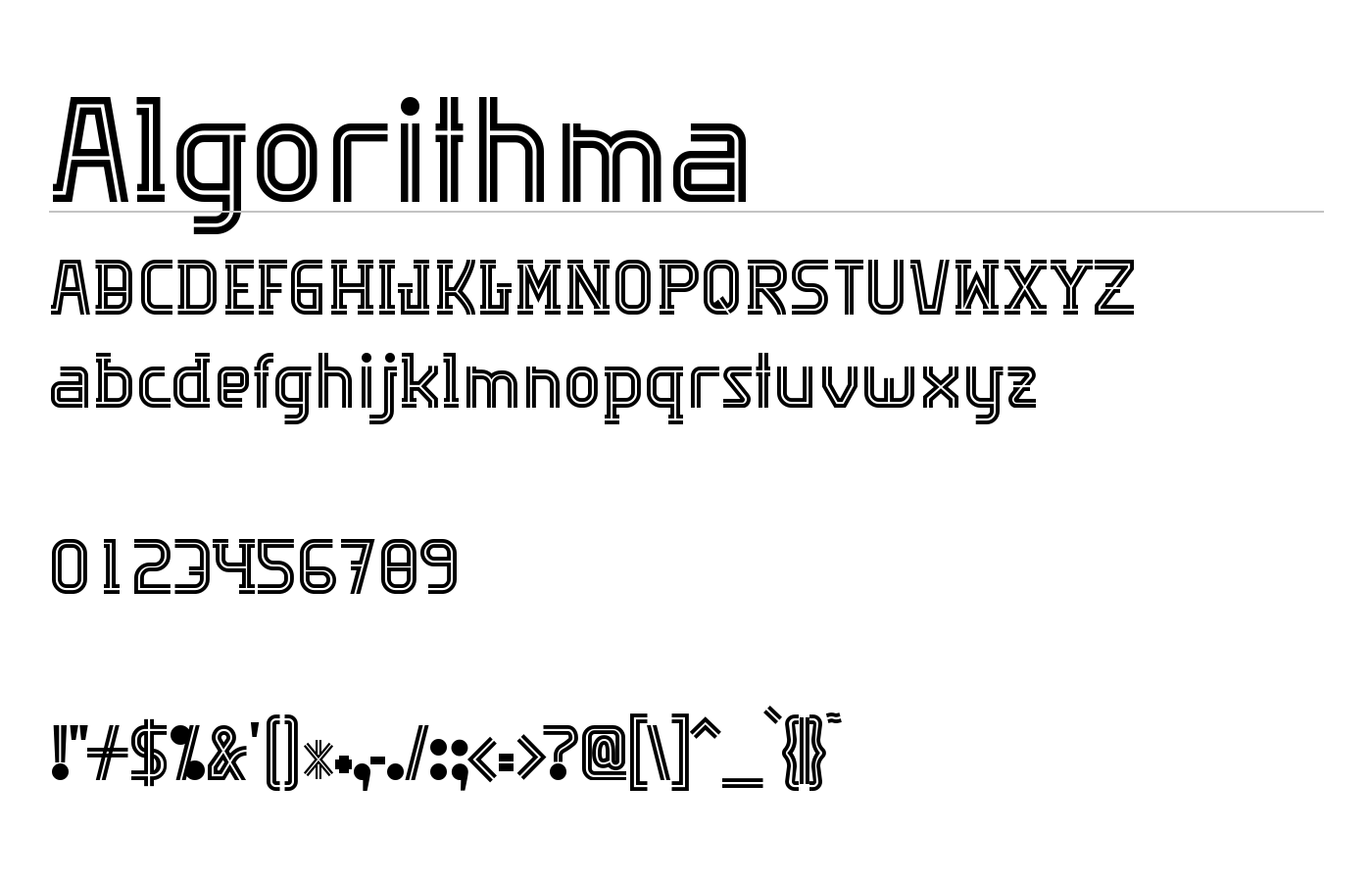
Algorithma is a modern, geometric sans serif font with a distinct layered outline style that gives it a technical, almost digital feel. Its clean, narrow letterforms with consistent stroke contrast and unique details make it perfect for futuristic branding, tech-focused logos, and striking headlines where a contemporary and innovative look is desired. This font stands out for projects seeking a sleek, engineered appearance with a touch of sophistication.
Algorithma Font
About Algorithma Font
| Designer | Max Infeld |